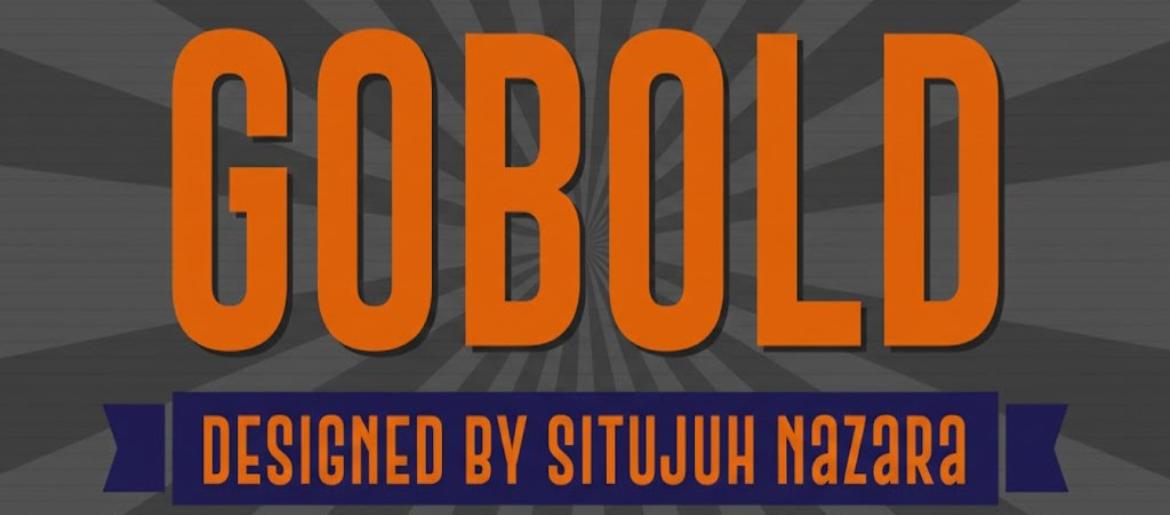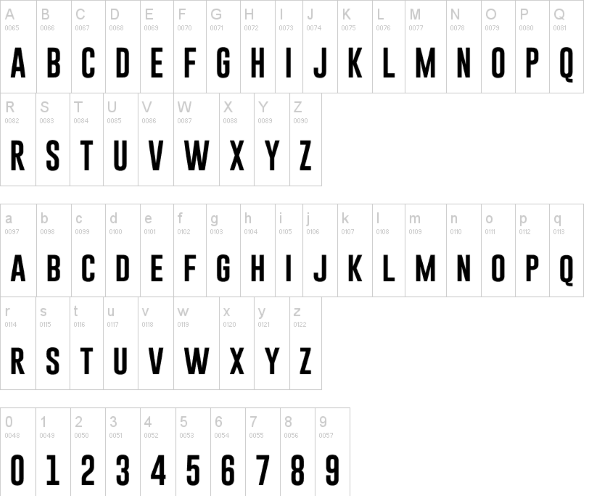
Gobold Font
Gobold font
Gobold is a bold, modern sans-serif typeface designed by Situjuh Nazara, known for its clean lines and strong geometric structure. Popular in logos, posters, and branding, Gobold delivers a powerful visual impact while remaining highly readable across both digital and print design projects.
➤ Font Name: Gobold
➤ Designer: 7NTypes
➤ Style: Sans serif